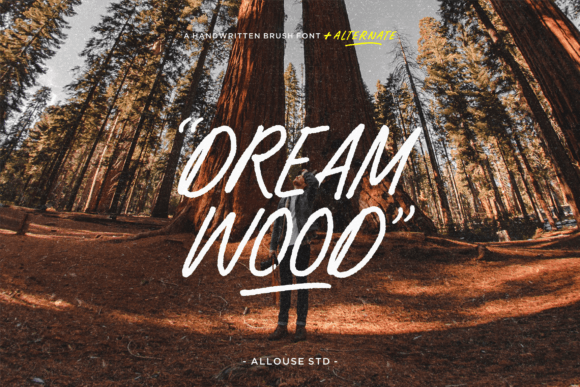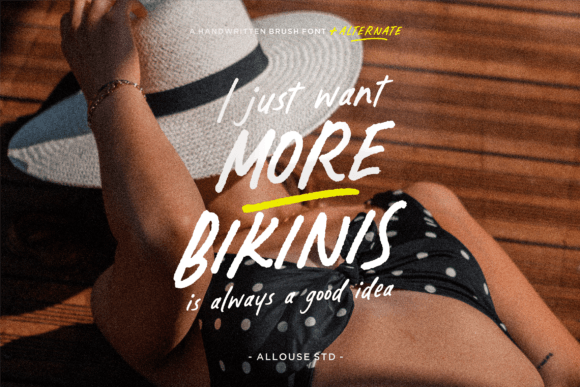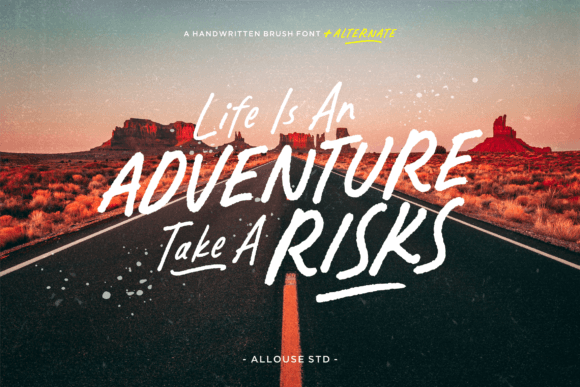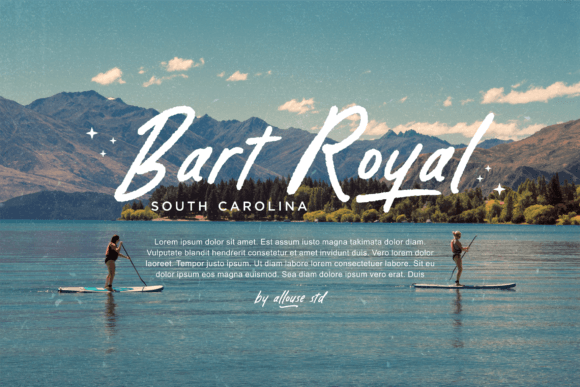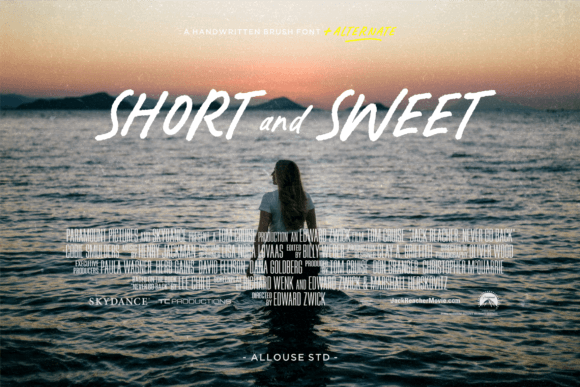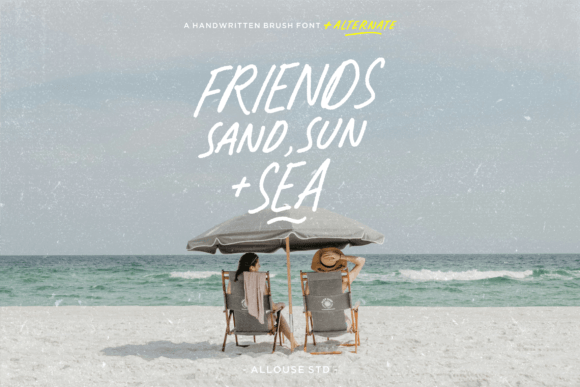
Introduction to Explorebrush Font
Explorebrush is perfect for product packaging, branding project, megazine, social media, wedding, or just used to express words above the background.
Key Features of Explorebrush Font
Why Choose Explorebrush Font?
Explorebrush Font offers exceptional quality and versatility, making it a valuable addition to your design toolkit. Whether you’re creating for personal projects or commercial use, Explorebrush Font delivers professional results.